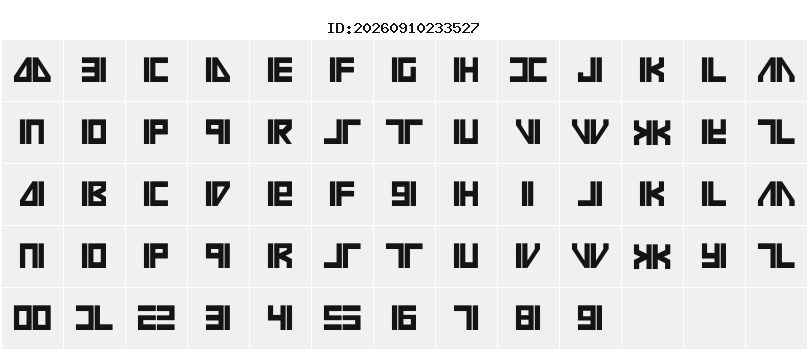
Vilmos Magyar Preview
• Font Name: Vilmos Magyar
• Font ID: Vilmos Magyar
• Full Font Name: Vilmos Magyar
• PostScript Name: VilmosMagyar
About Vilmos Magyar.ttf
Vilmos Magyar.ttf is a modern, elegant sans-serif font designed for ultimate readability and visual harmony. Perfect for branding, headlines, web design, and print materials.